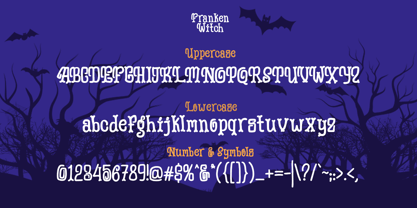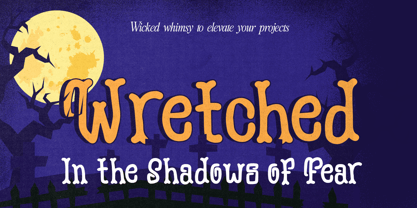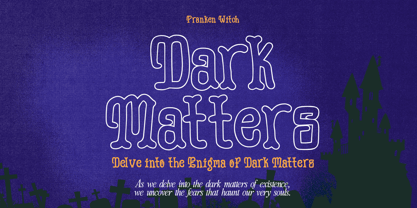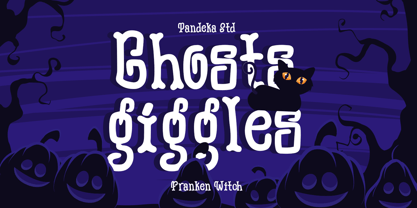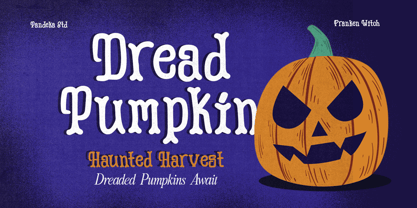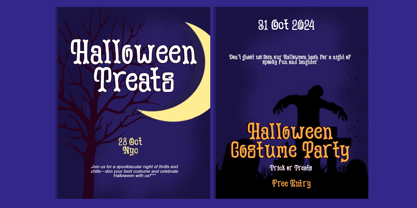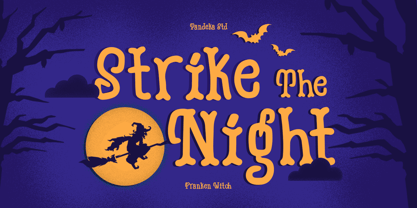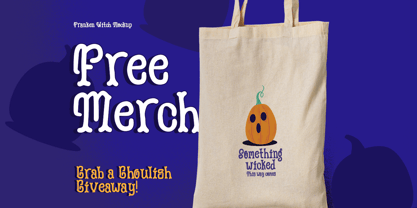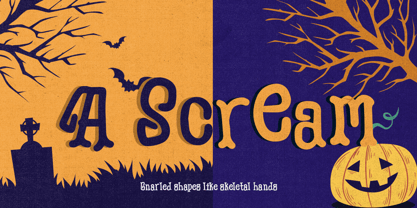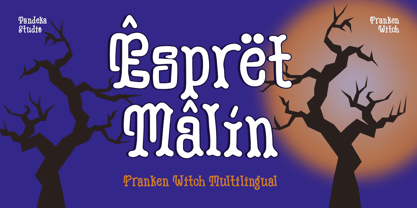
Franken Witch
by Pandeka Studio
The Franken Witch Font Family was designed by Sagara Nararya and published by Pandeka Studio. Franken Witch contains 2 styles and family package options. More about this family
Franken Witch font is crafted to bring a spooky and eerie atmosphere to your horror-themed designs. With its rough texture and chilling look, Franken Witch is perfect for adding a creepy vibe to your projects, whether they’re for Halloween or other supernatural occasions. Let this font add a haunting touch to your design and craft work.
• 2 style : Regular and Outline
• Unique letterforms
Designers: Sagara Nararya
Foundry: Pandeka Studio